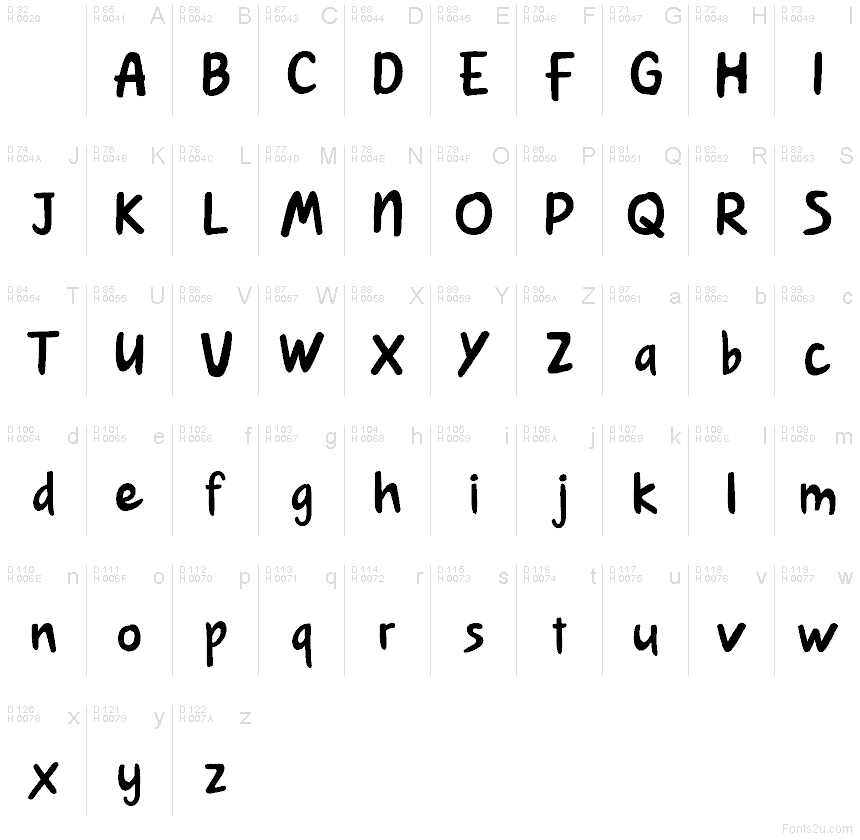
CS Mellow Regular Demo
CS Mellow font by Craft Supply Co. is a free brush handwritten font. It solves a familiar headache: getting hand‑painted warmth without the sloppy, hard‑to-read bits. The strokes are thick yet steady, with rounded, inky terminals and a gentle bounce that feels friendly, not chaotic. Generous counters and even rhythm keep words clear at a glance while still delivering that squishy, marker‑on‑paper vibe.
Using CS Mellow, headlines pop on packaging, cafe menus, kids’ branding, social posts, stickers, event flyers, and merch. This free font stays readable at small sizes but really sings big. For a clean contrast, pair it with a light geometric sans and keep tracking tight to preserve its cozy, chunky flow.